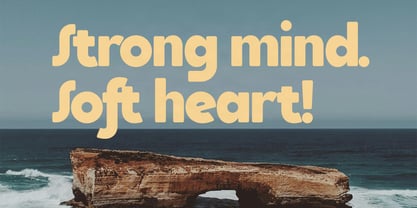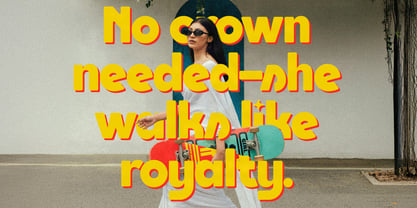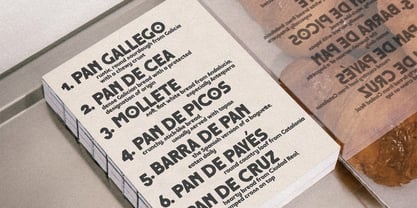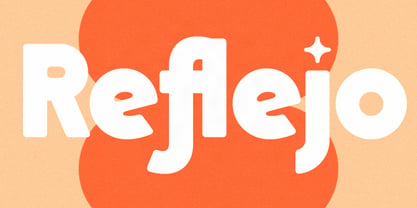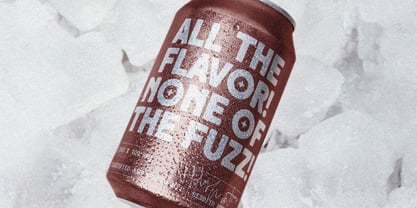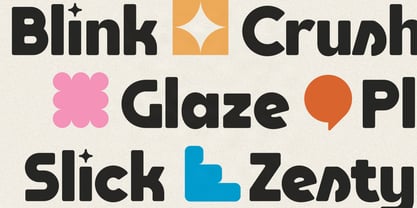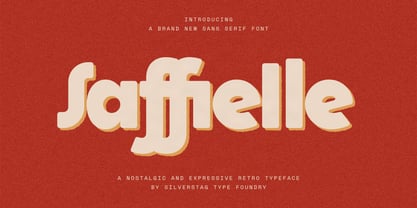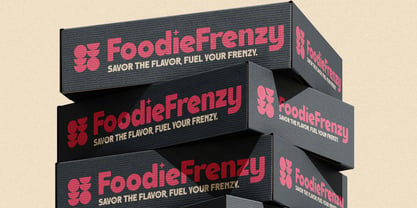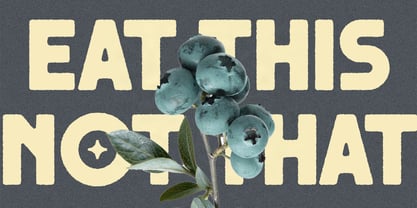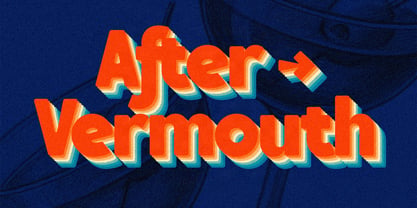
SLTF Saffielle
by SilverStag
SLTF Saffielle is a bold, expressive sans serif typeface that blends retro soul with modern versatility. Designed for designers who crave nostalgia with a twist, Saffielle comes in two striking variants: a clean Regular version and a textured Vintage style featuring subtle rough edges for a tactile, analog look.
This typeface is packed with charm – featuring creative ligatures, alternate letterforms, and full support for over 100 languages. It’s a perfect choice for branding, packaging, editorial headlines, posters, and projects that call for a bit of attitude and warmth.
From loud typographic statements to soft vintage-inspired moments, Saffielle makes your design stand out while keeping it stylish.